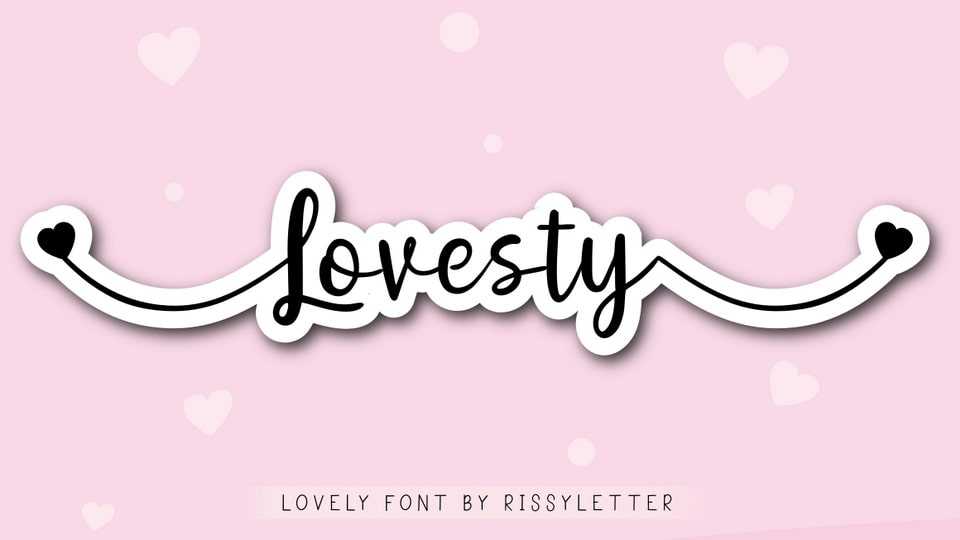
Download Lovesty font, a beautiful handwritten typeface featuring characters that flow beautifully into each other. Lovesty is suitable for logotypes, wedding, Valentine cards, comics, cartoons, YouTube or any of your creative design projects.